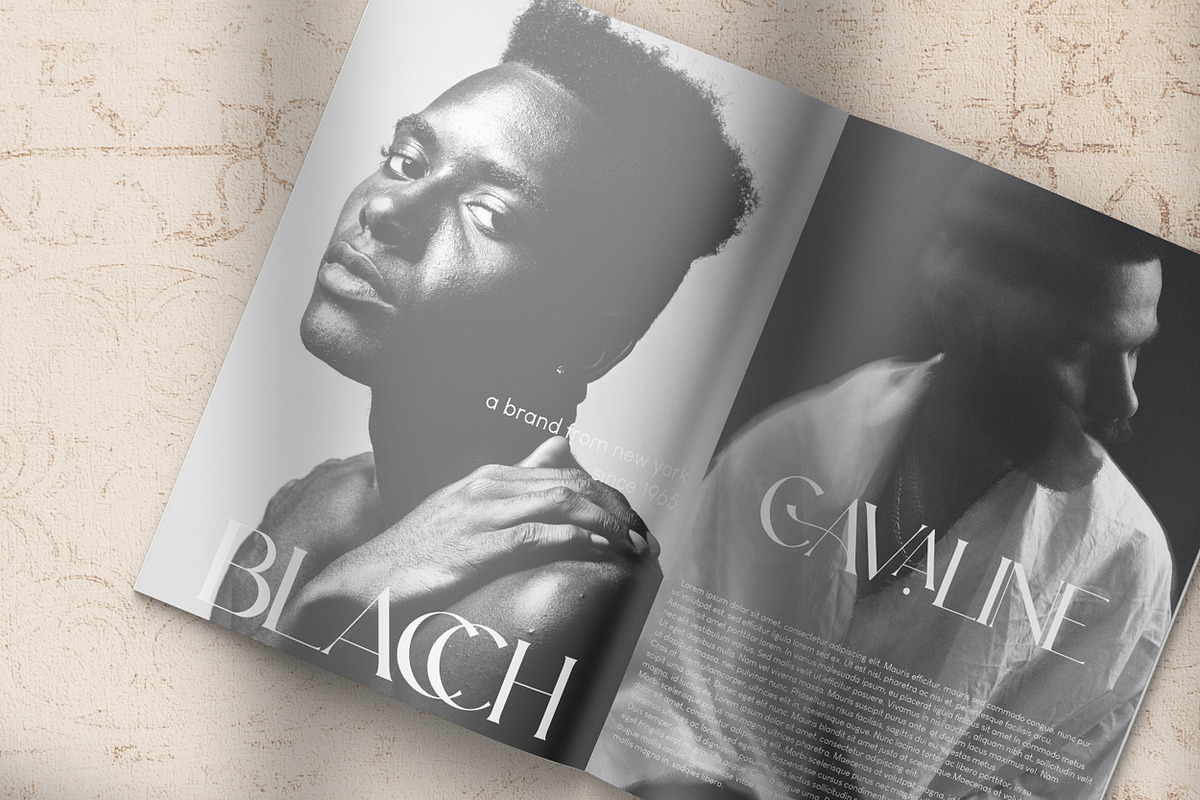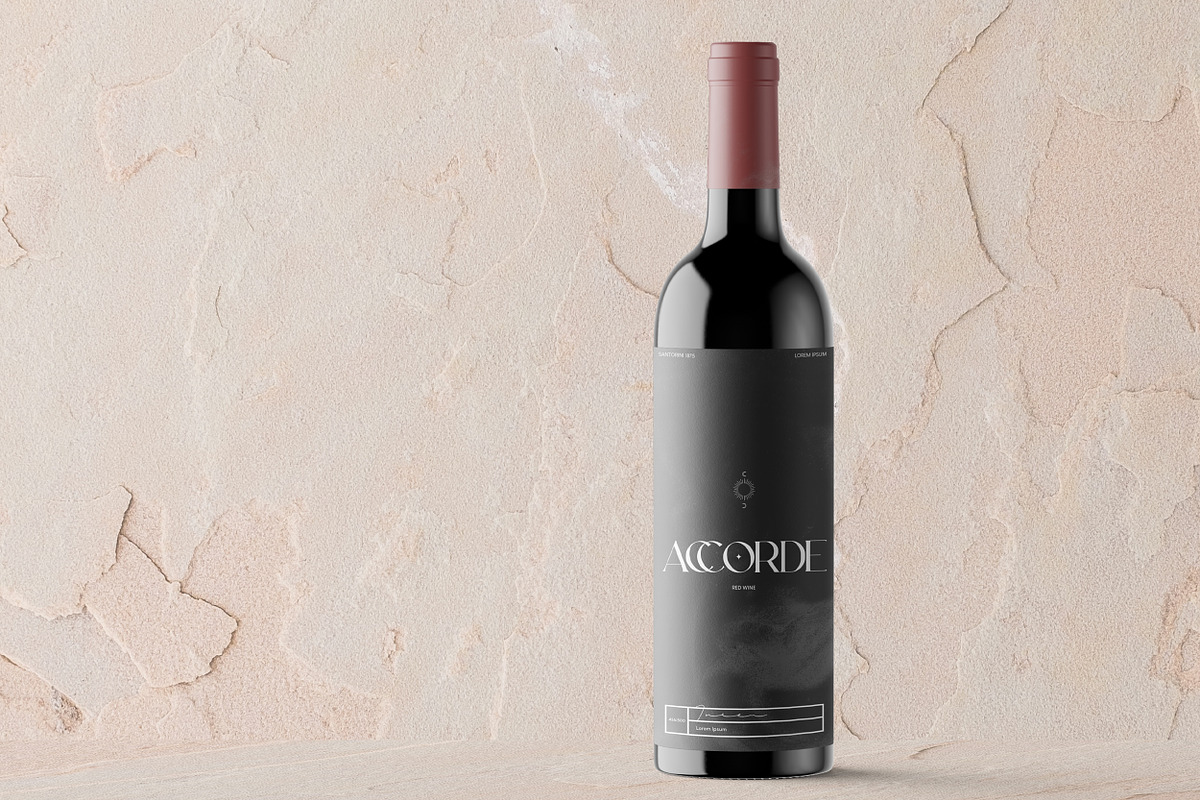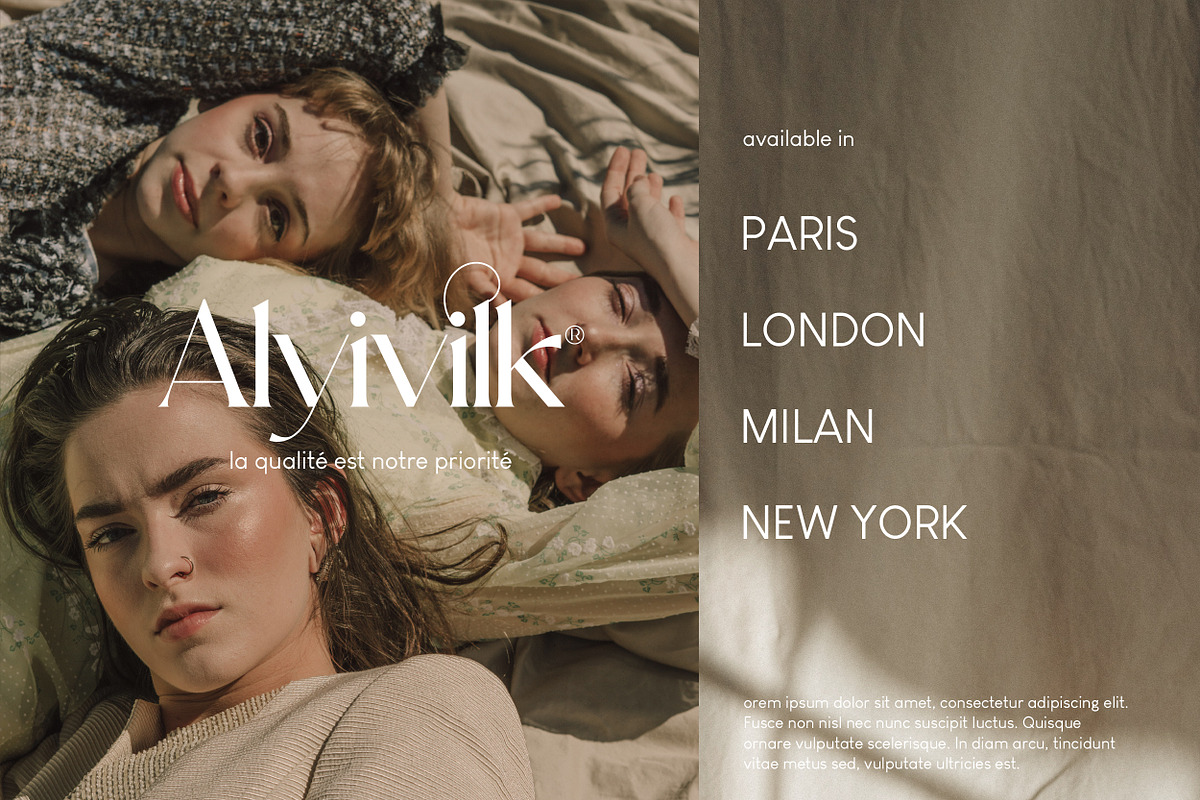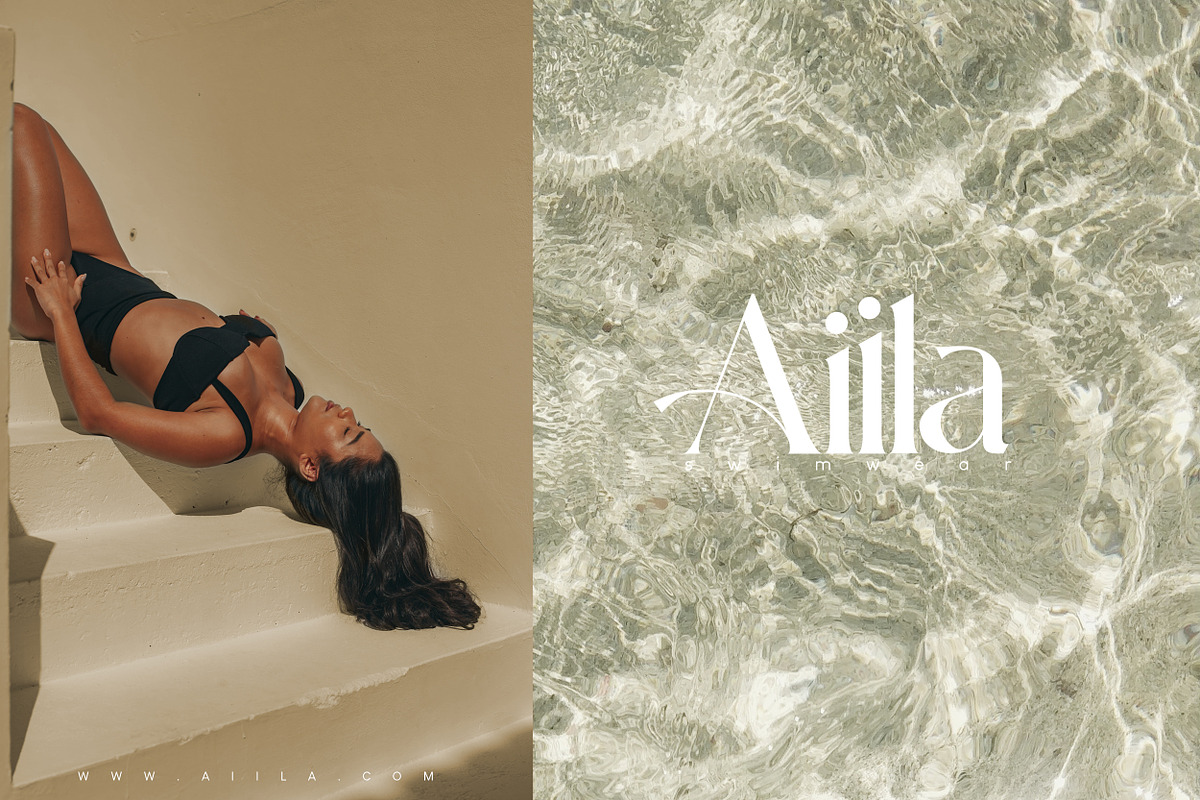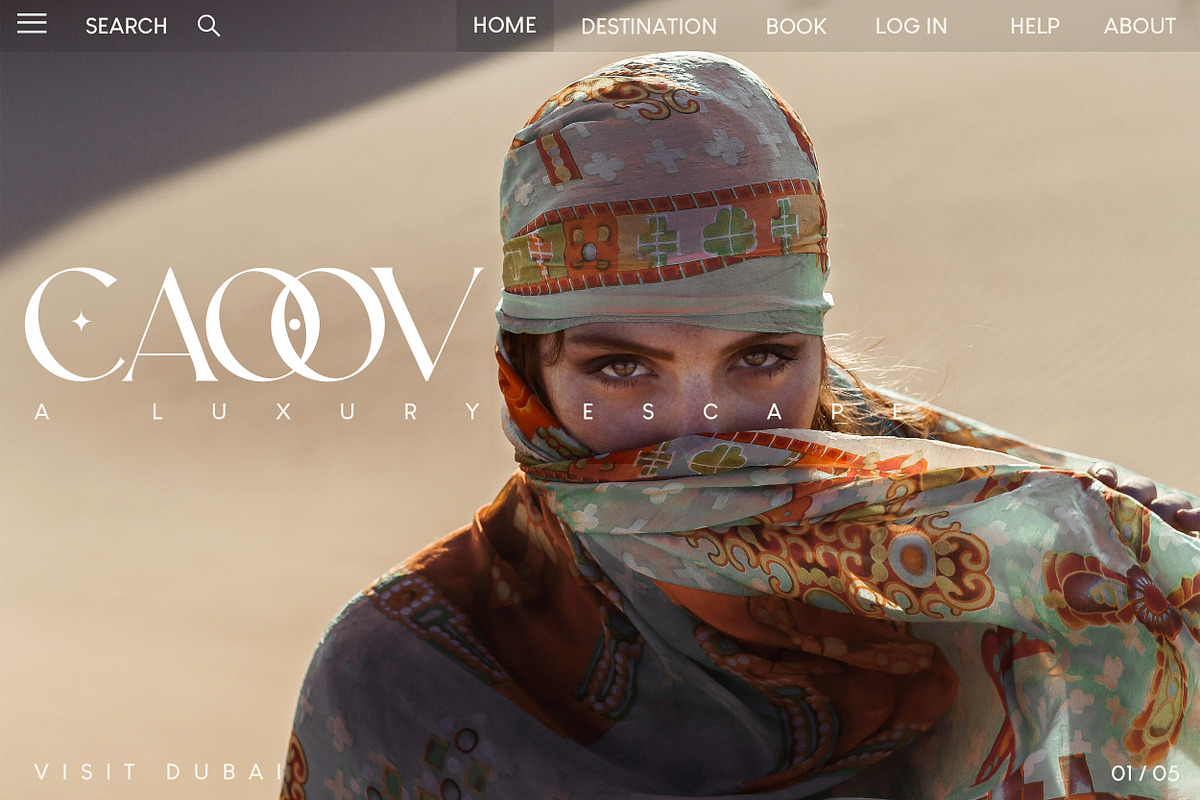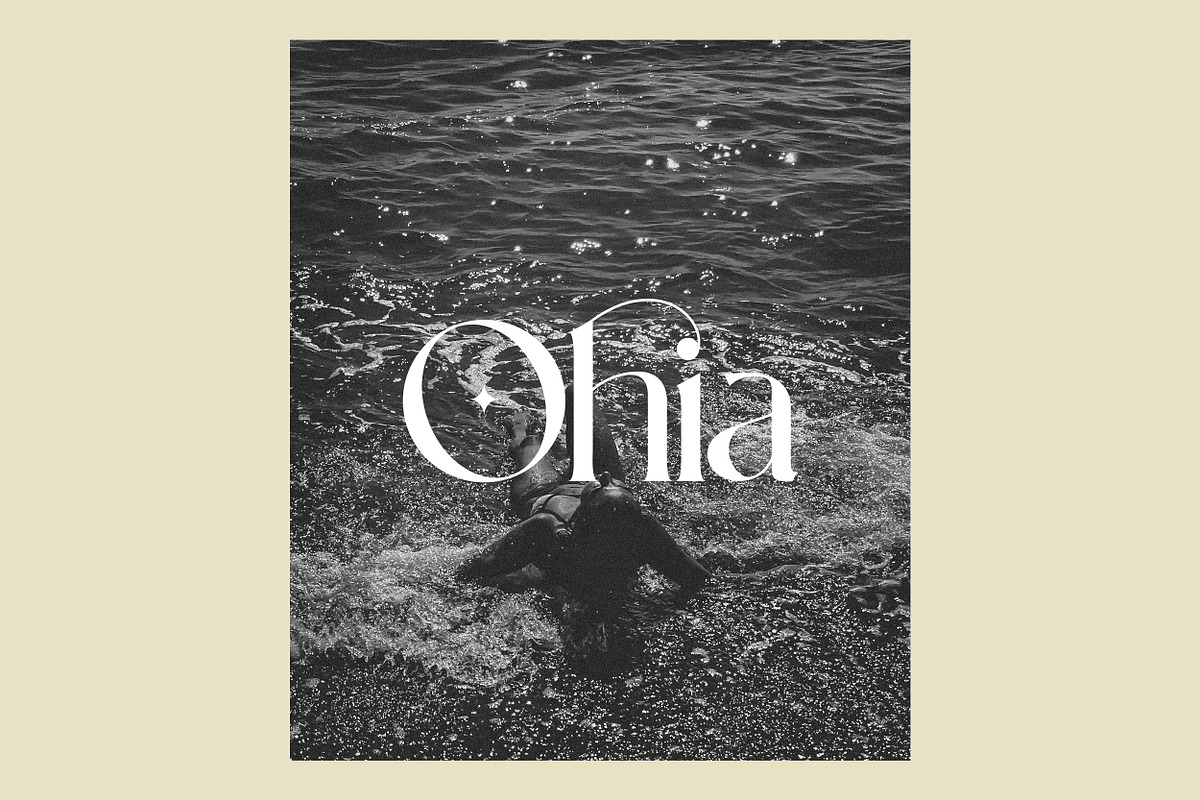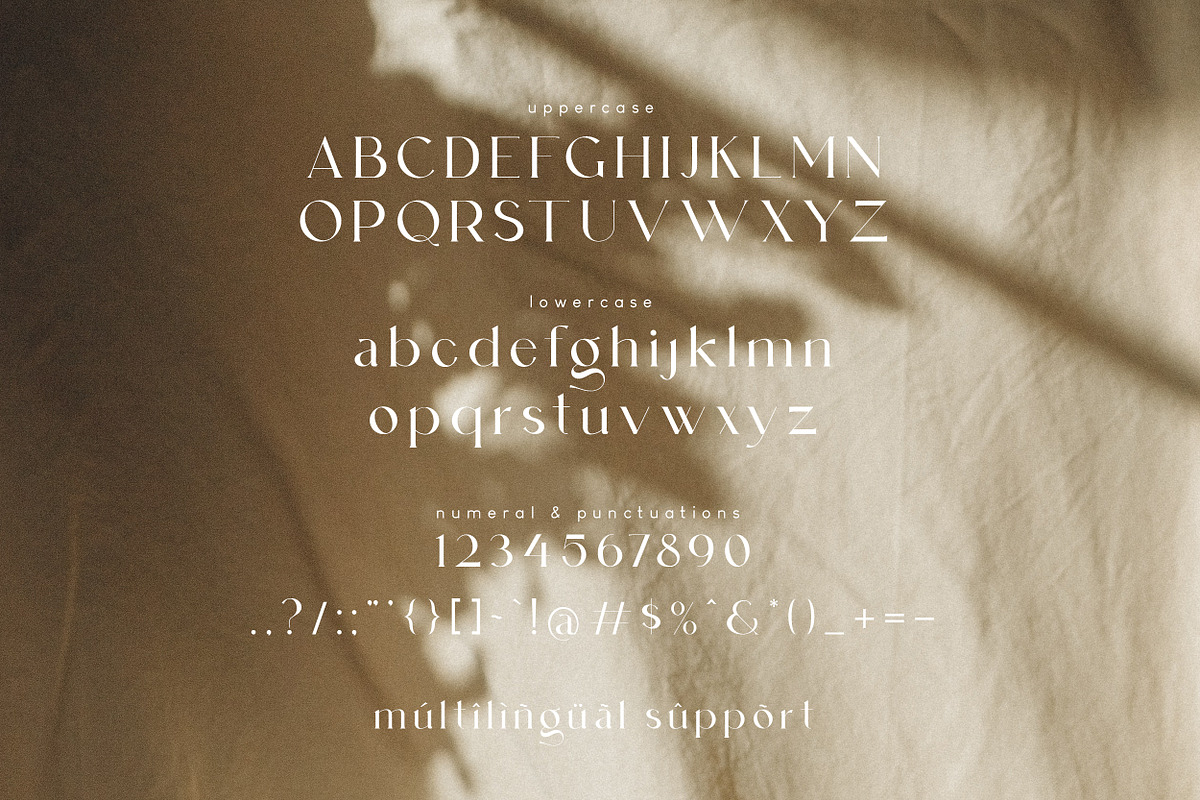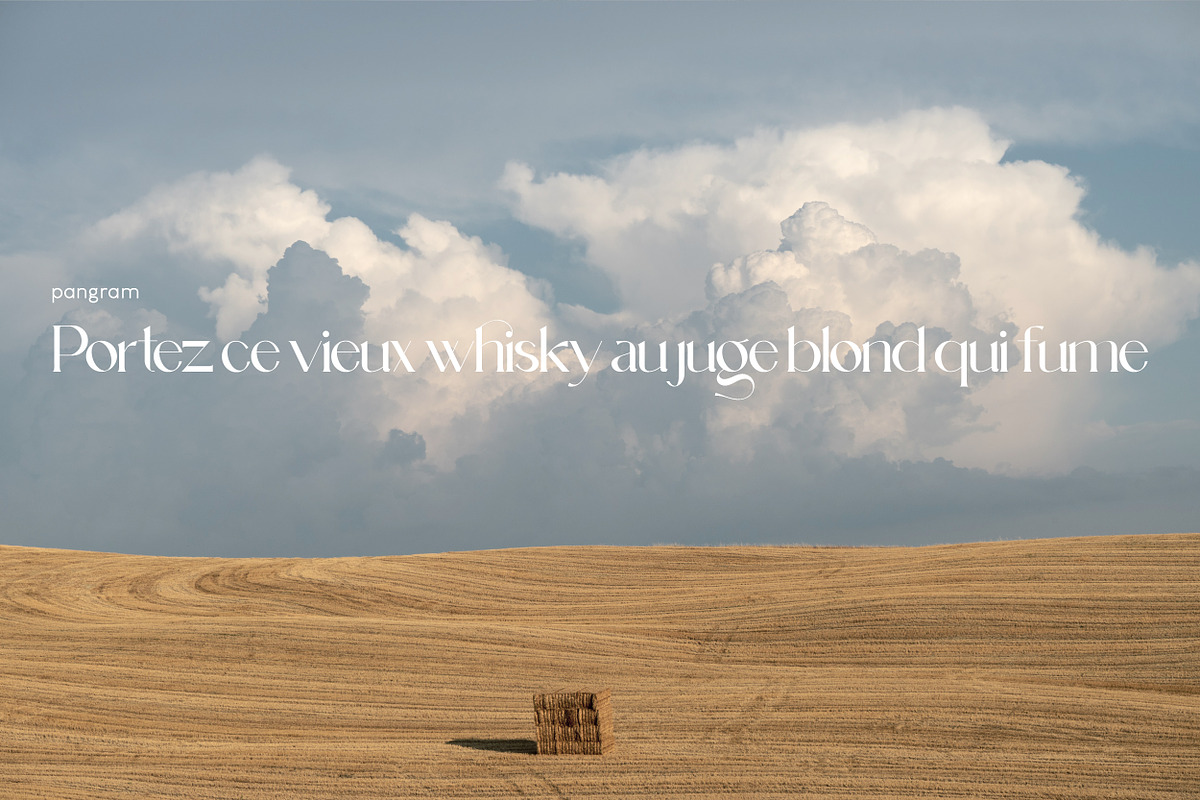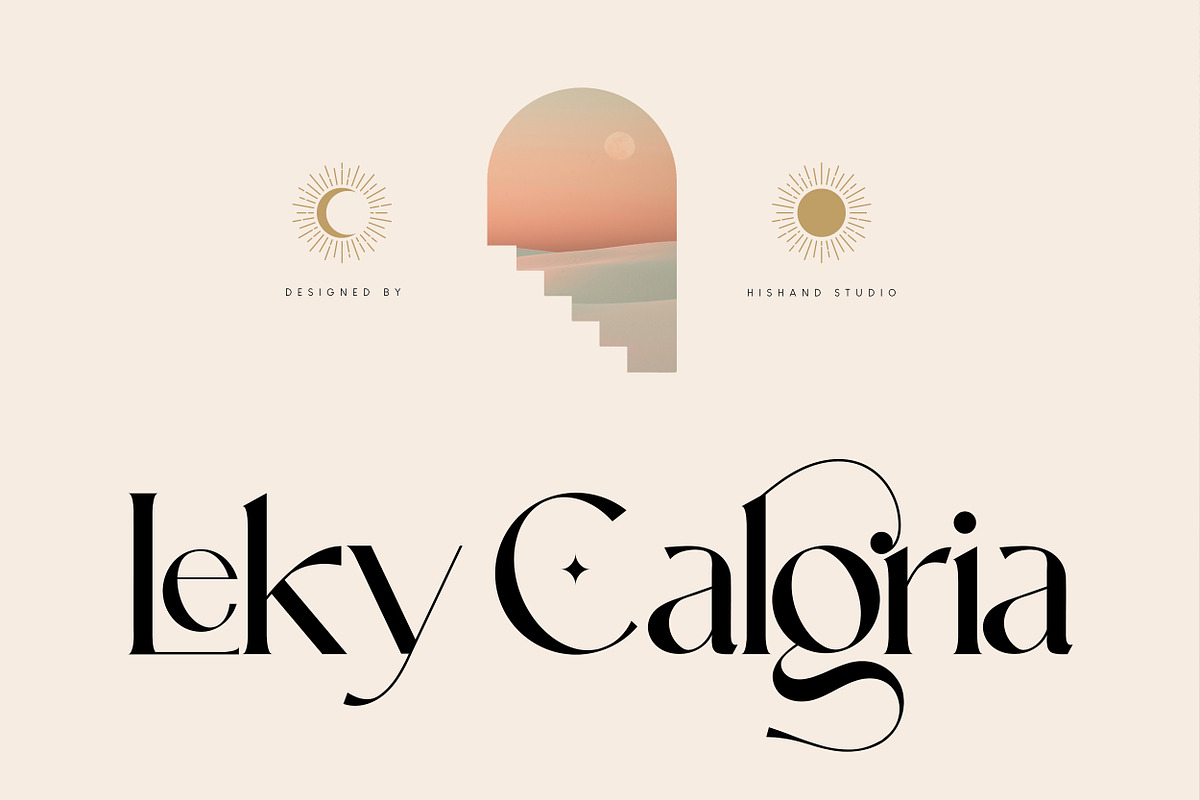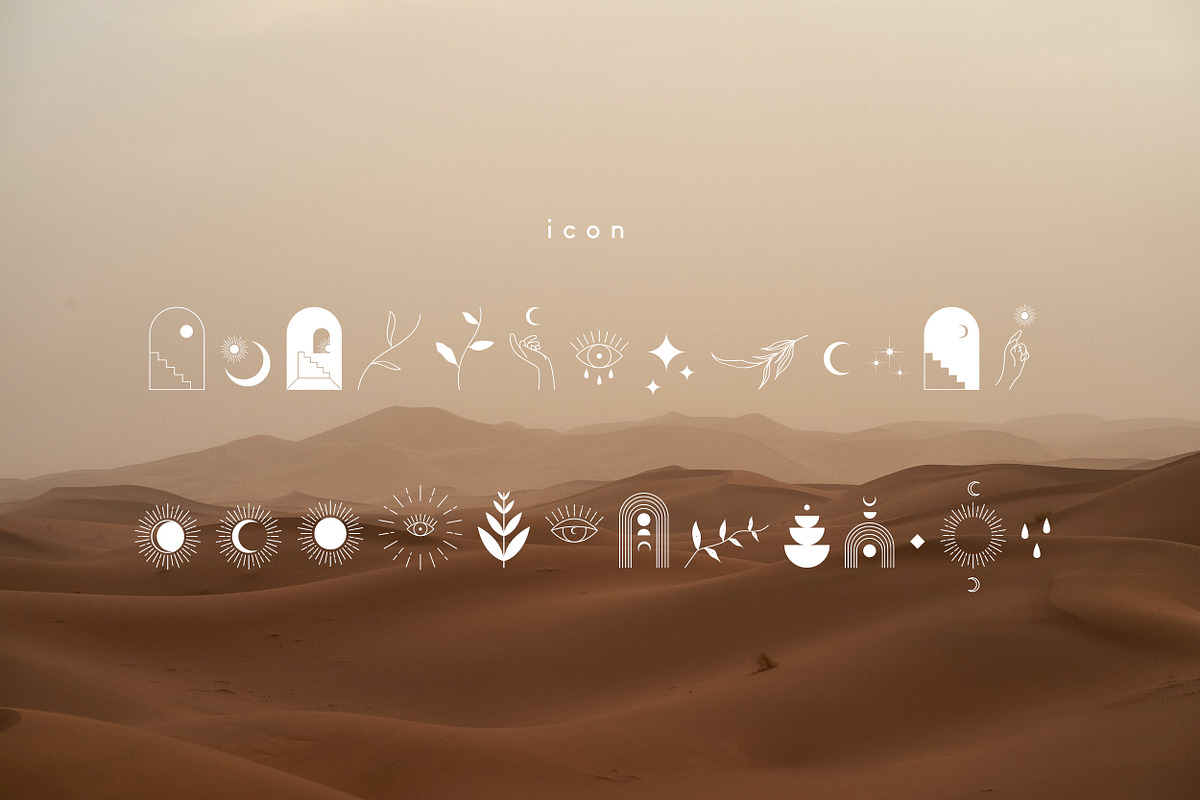
Leky Calgria Elegant Serif
Leky Calgria is elegant serif font with beautiful and luxury touch good for gorgeous wedding invitations, beautiful stationary art, eye-catching social media posts, logo, branding and much more. Complete with
- alternates
- regular
- italic
- icon
- kerning
- multilingual support